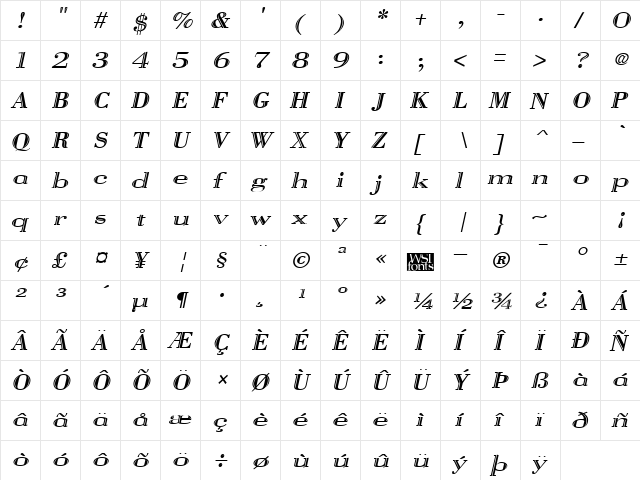
VangardOpen Italic
Design Context for VangardOpen Typeface
VangardOpen is a composed and adaptable typeface that performs quietly and consistently across a wide range of design contexts. The dynamic lean of this cut emphasises speed and emphasis in any layout.
Pro Tip: Try VangardOpen for annotation and caption copy alongside an upright companion — the contrast in angle creates a dynamic but ordered typographic system.